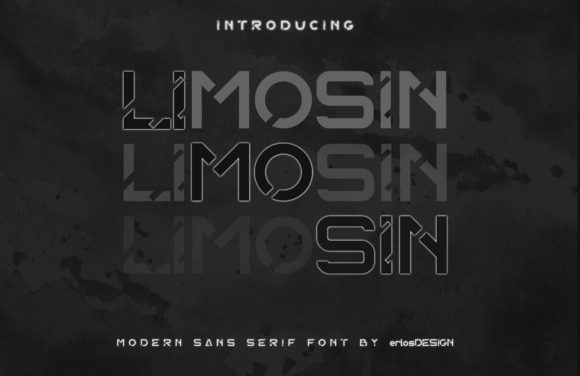
Limosin: A Unique Display Font for Creative Makers
As a maker, I’m always on the lookout for fonts that can add a unique touch to my designs. Recently, I had the chance to test Limosin, a display font that promises to give your designs a great personality. I decided to put it to the test on a set of candle labels, and I was thrilled with the results.
Limosin for Handmade Candle Labels and Branding
When I first saw Limosin, I knew it would be perfect for my candle labels. The font's unique style and charm instantly caught my eye. As I designed the labels, I found that Limosin added a touch of elegance and creativity that made each label stand out. The font’s personality shone through, making the candles look more premium and inviting.
Using Limosin for branding was equally impressive. The font’s distinctive character gave my brand a memorable and professional look. Whether it was on the labels or in social media posts, Limosin helped create a cohesive and appealing brand identity.
Limosin for Greeting Cards and Social Media Graphics
Next, I tested Limosin on a set of greeting cards. The font’s decorative and playful nature made it ideal for creating heartfelt and visually appealing cards. The readability was excellent, even when used for shorter phrases and names. For social media graphics, Limosin added a creative and engaging element that captured attention and enhanced the overall design.
One of the key benefits of using Limosin is its versatility. It works well for both digital and physical products, making it a valuable addition to any designer’s toolkit. Whether you’re crafting a birthday card or designing a social media post, Limosin can help you achieve a unique and polished look.
Limosin for Wedding Invitations and Elegant Branding
For a more formal and elegant use case, I tried Limosin on wedding invitations. The font’s sophisticated and artistic style perfectly complemented the romantic and refined theme. The invitations looked stunning, and the font’s personality added a special touch that made them feel more personal and memorable.
When it comes to branding, Limosin is a fantastic choice for creating a high-end and luxurious feel. Its unique and stylish appearance can elevate your brand’s visual presence, making it stand out in a crowded market. Whether you’re designing a logo, packaging, or promotional materials, Limosin can help you achieve a professional and distinctive look.
Limosin for Product Packaging and Merchandise
I also experimented with Limosin on product packaging and merchandise. The font’s clean and modern lines made it suitable for a wide range of products, from tote bags and mugs to t-shirts and signs. The readability was excellent, even on smaller items like stickers and tags. The font’s versatility allowed me to use it for both short phrases and longer text, ensuring that the packaging and merchandise looked both creative and professional.
One important note: while Limosin is highly decorative, it may not be the best choice for very tiny cuts or long paragraphs. For these cases, pairing Limosin with a clean sans serif or simple serif font can help maintain readability and balance. Additionally, it’s always a good idea to check the included styles, alternates, and file formats to ensure they meet your specific design needs.
Limosin for Digital Downloads and Printables
Finally, I tested Limosin on a set of digital downloads and printables. The font’s creative and unique style made it perfect for creating eye-catching and engaging templates. Whether it was for planner pages, wall art, or seasonal designs, Limosin added a special touch that made the printables stand out. The font’s personality and charm made the designs feel more personal and appealing.